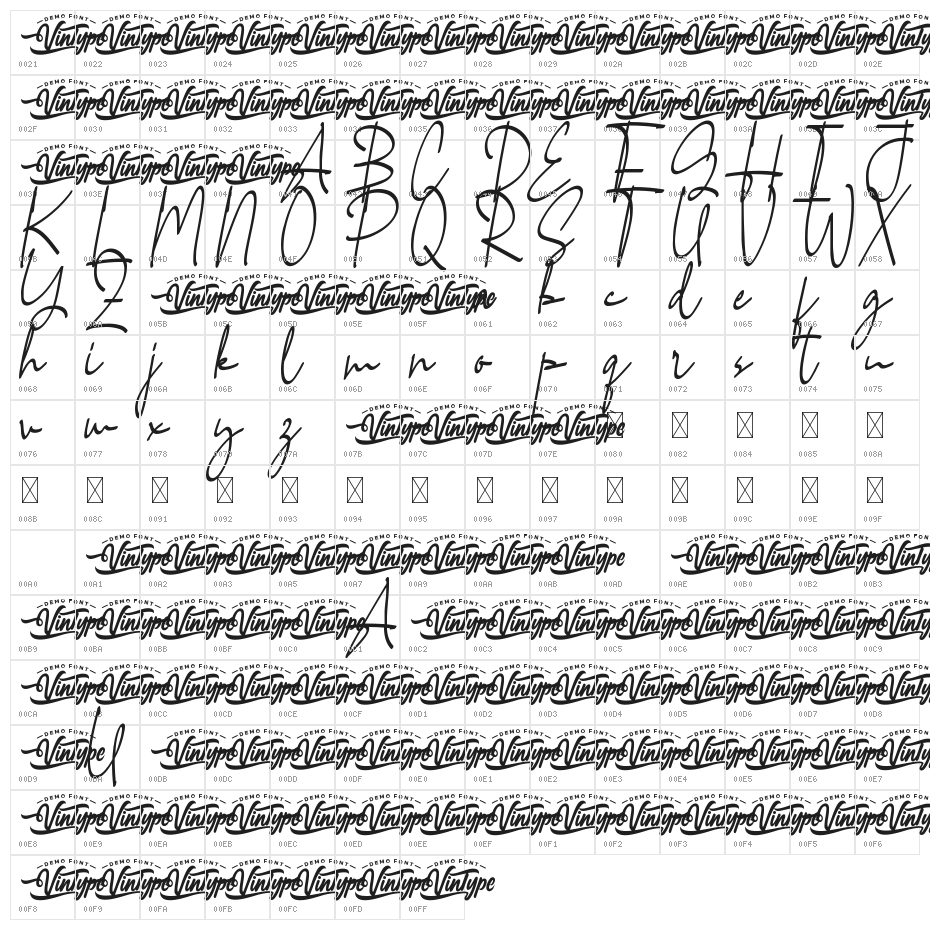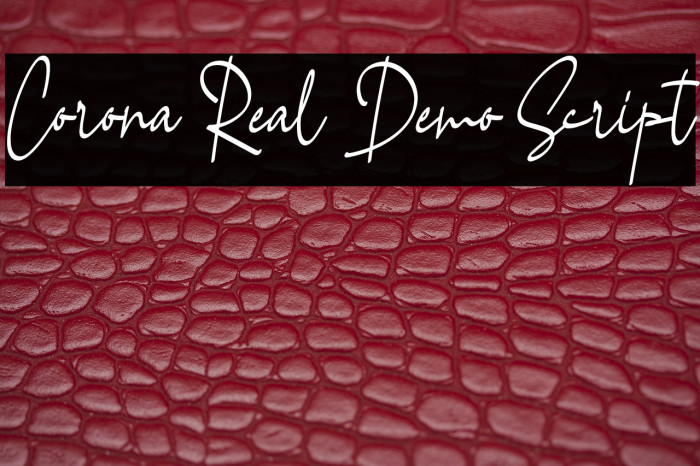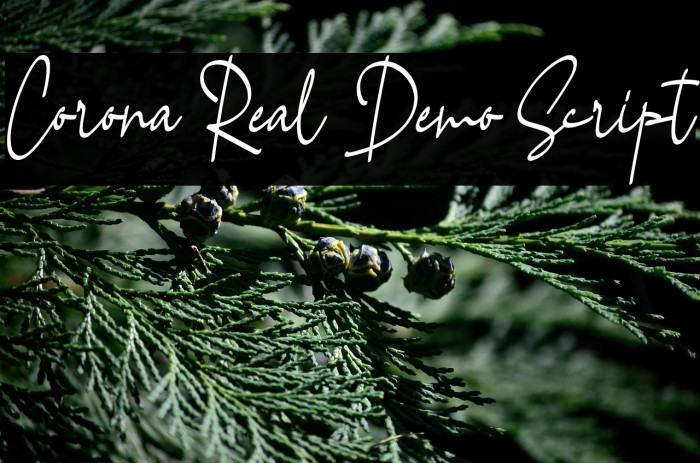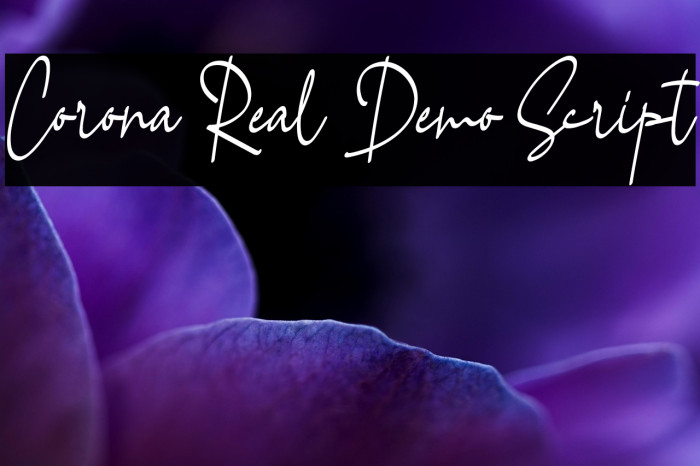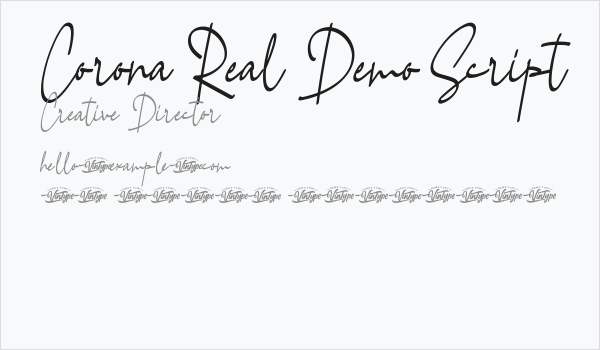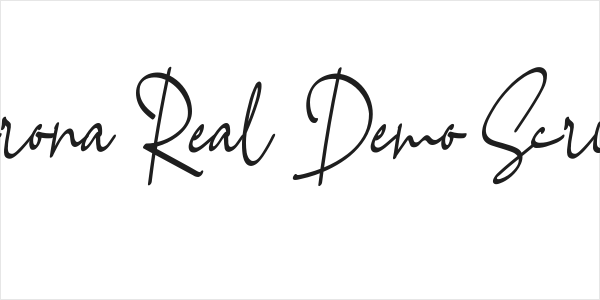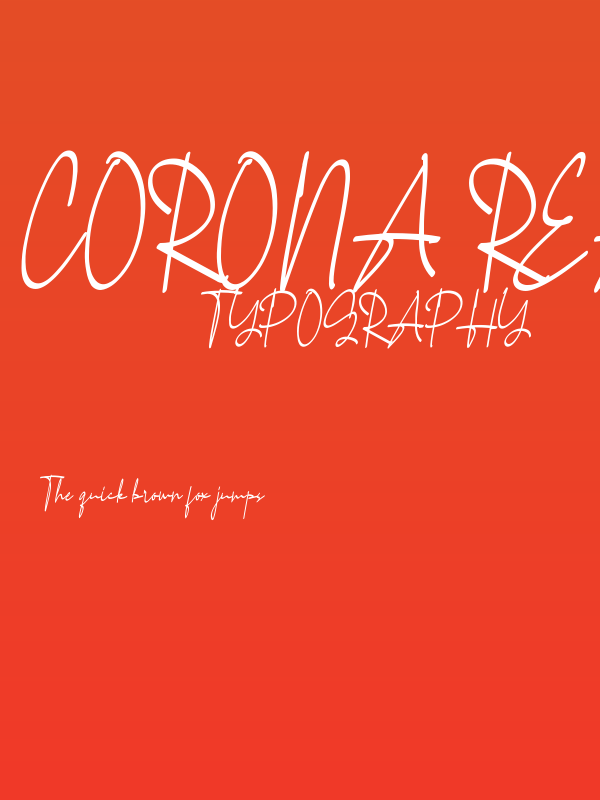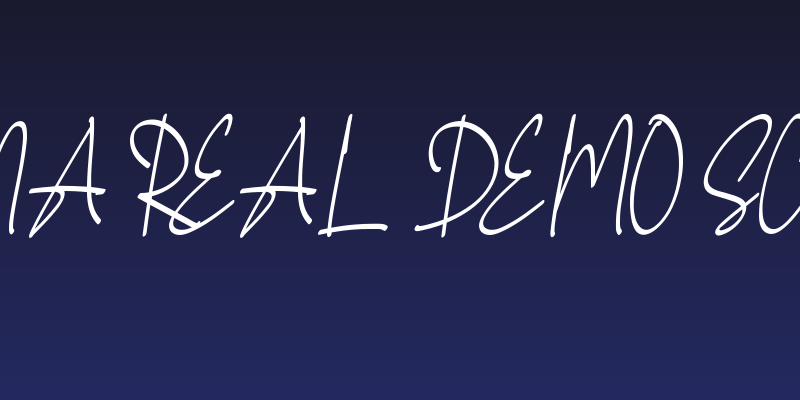
Corona Real Demo Script Font
Corona Real Demo Script Description
This font features a dynamic and fluid script style, characterized by its handwritten appearance. The uppercase letters are tall and slightly narrow, with a playful yet elegant flair. The lowercase letters maintain a consistent flow, enhancing the cursive nature of the font. The strokes are smooth and continuous, giving it a natural and authentic handwritten feel. The font includes a full set of uppercase and lowercase letters, numbers, and a selection of special characters. Its design is both expressive and versatile, suitable for a variety of creative applications.
| Use Case | Logos, Invitations, Personal Signatures |
| Proposed Projects | Ideal for wedding invitations, greeting cards, branding projects, and personal signatures. |